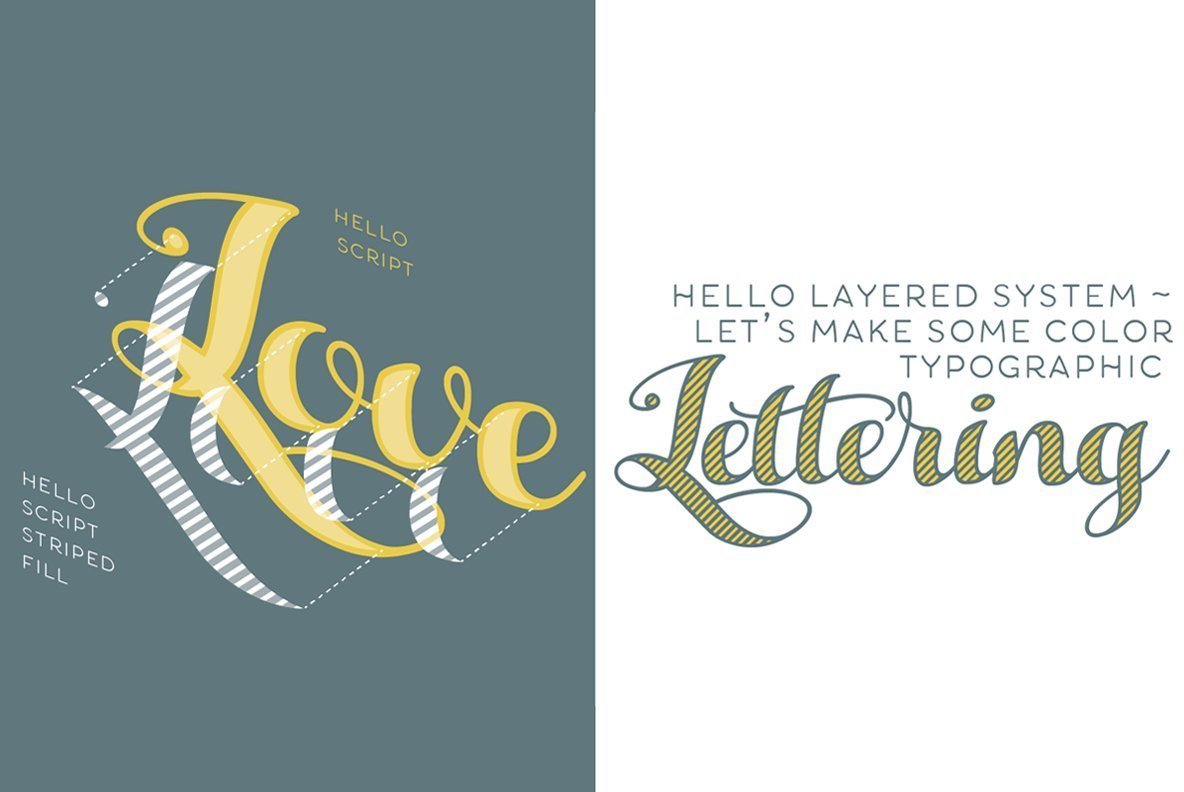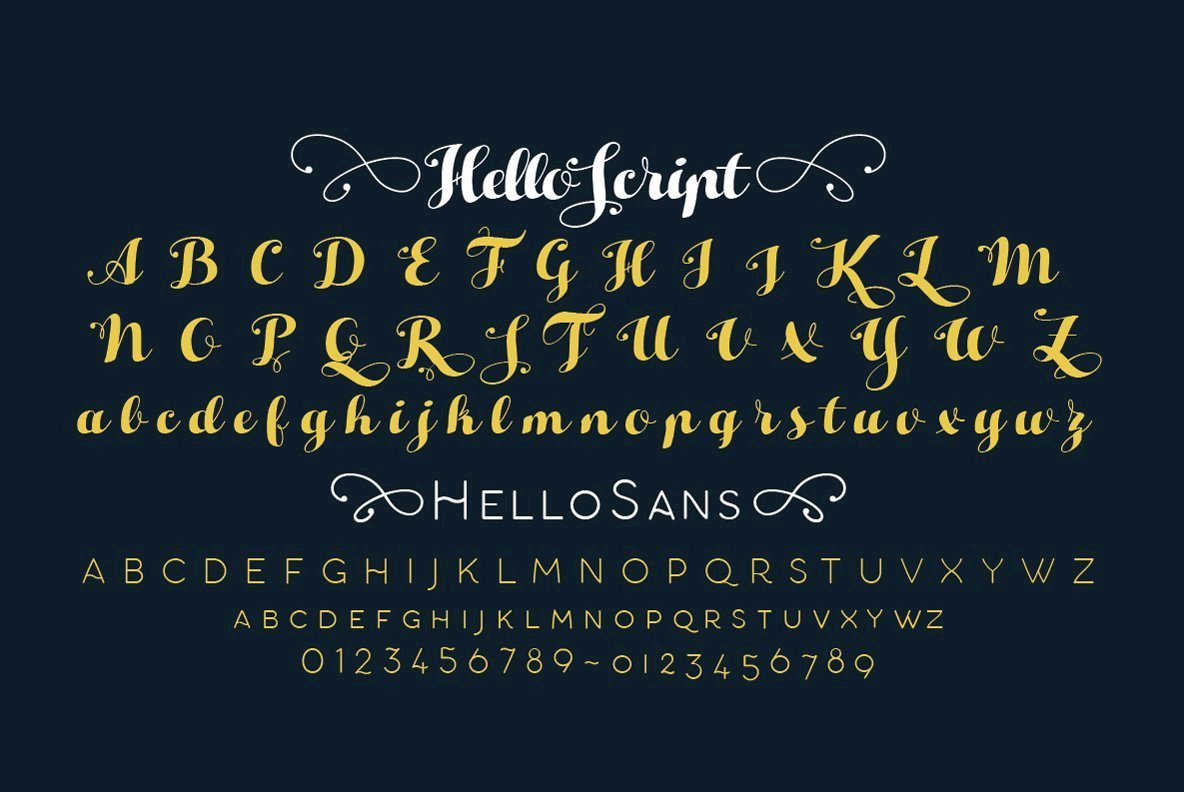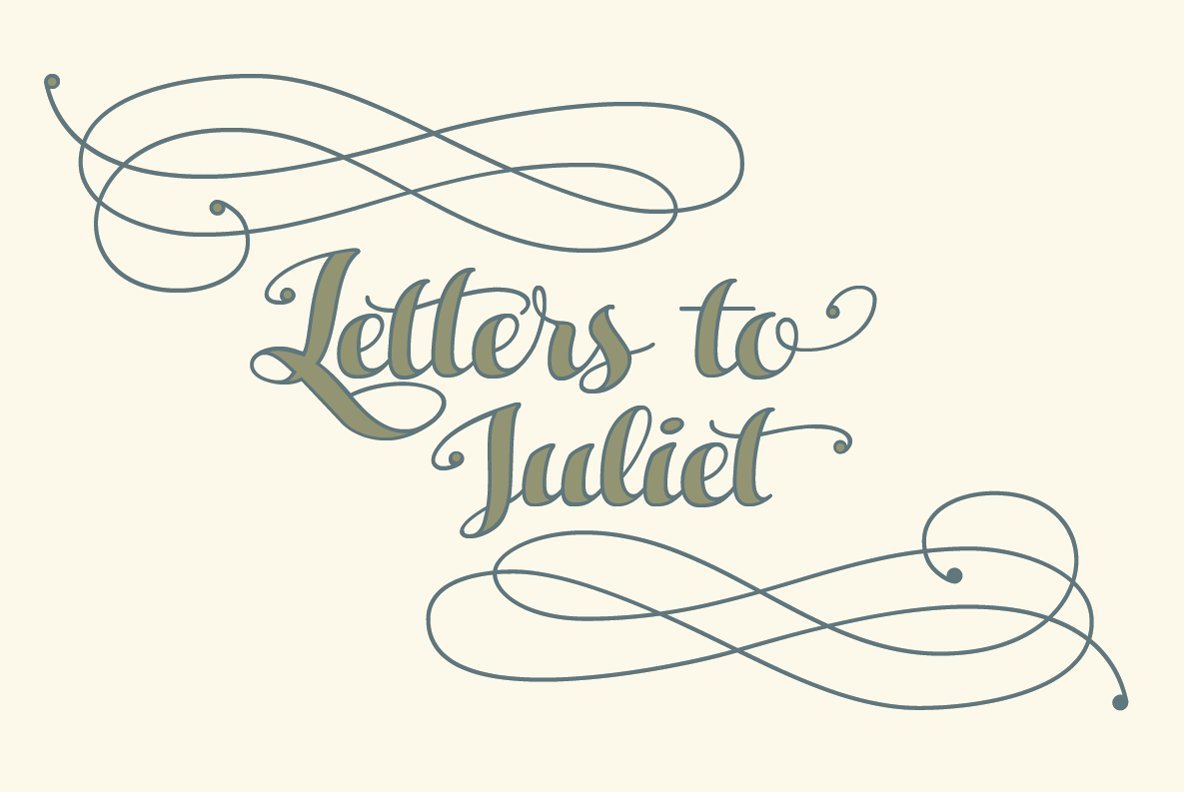
Hello Script Font
Hello Script is a high contrast calligraphic script designed by Cosimo Lorenzo Pancini, featuring monoline swashes and terminals and strong, round body shapes designed with a parallel nib.
It covers over 40 languages that use the Latin alphabet, with full range of accents and diacritics, and comes with over ten different swashes and two decorative fill typefaces (Hello Script Fill and Hello Script Striped Fill) to use as multilayer color fonts.
The Hello family features a sans serif companion (Hello Sans) as well as a christmas-themed version (Hello Christmas) with a set of Icons (Hello Christmas Icons), both featuring multilayer color fill.